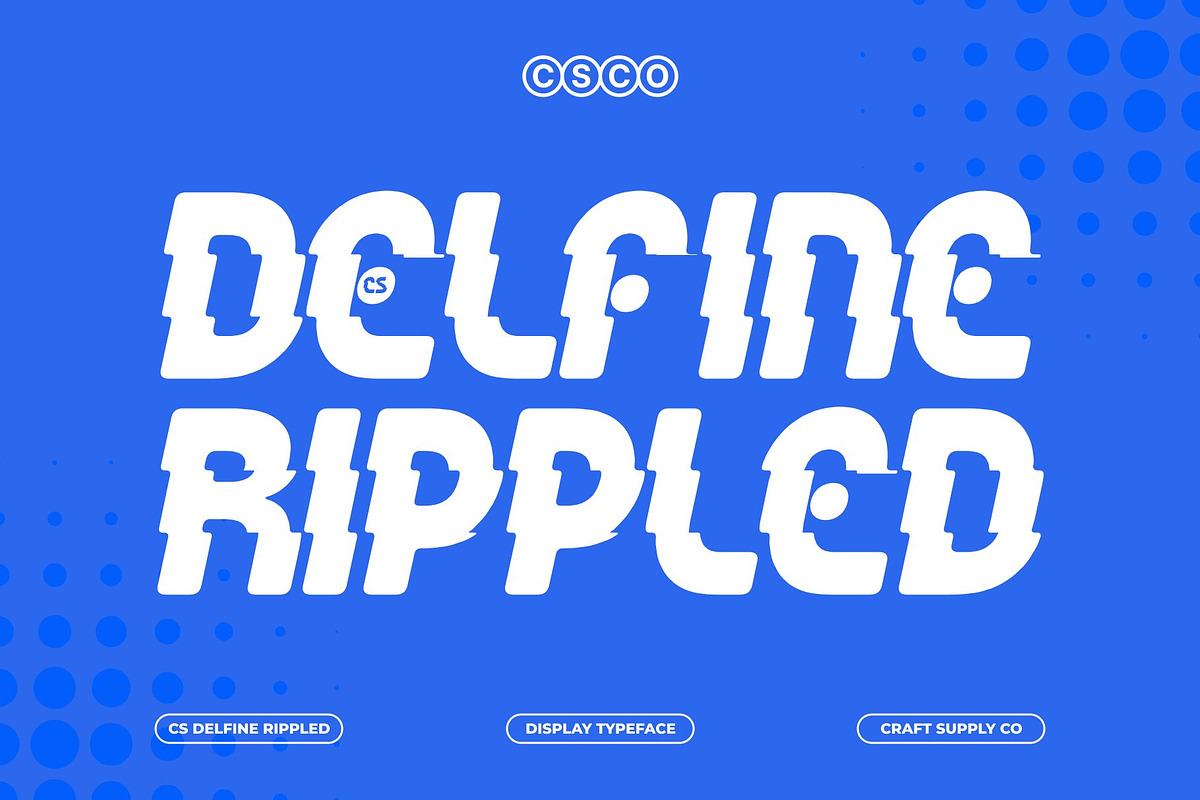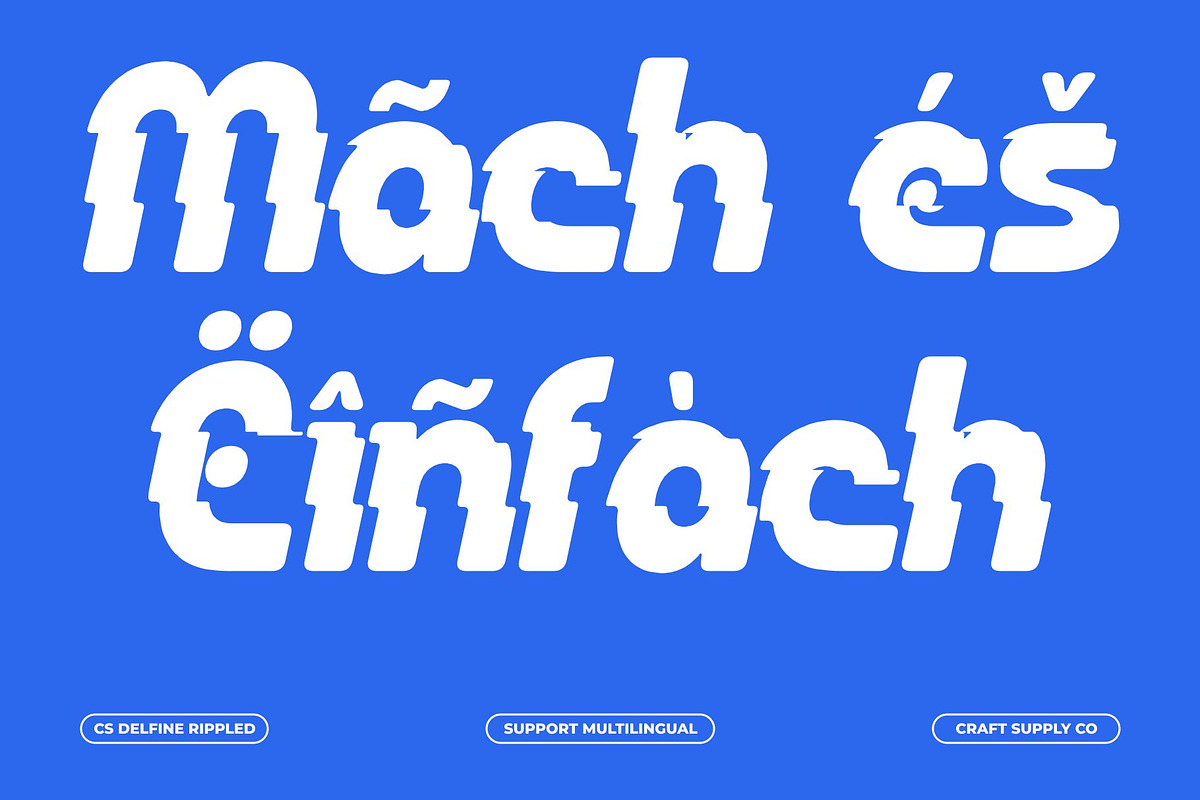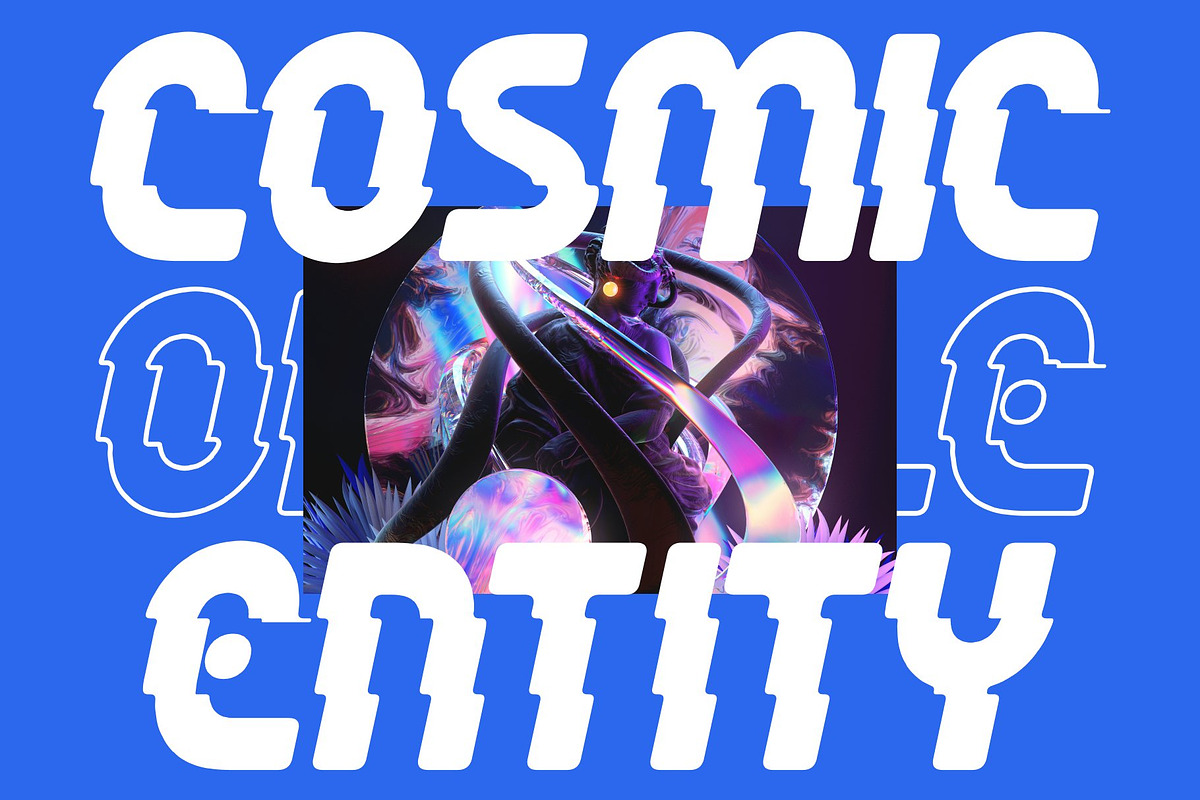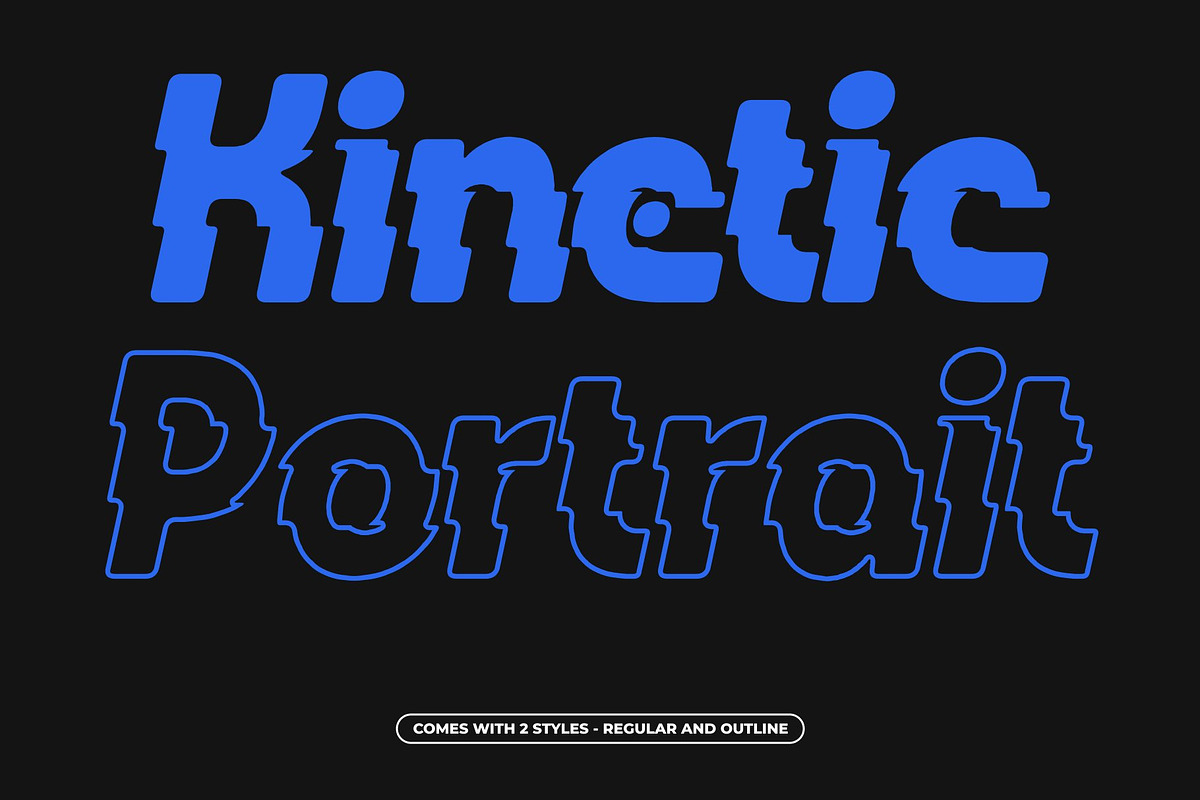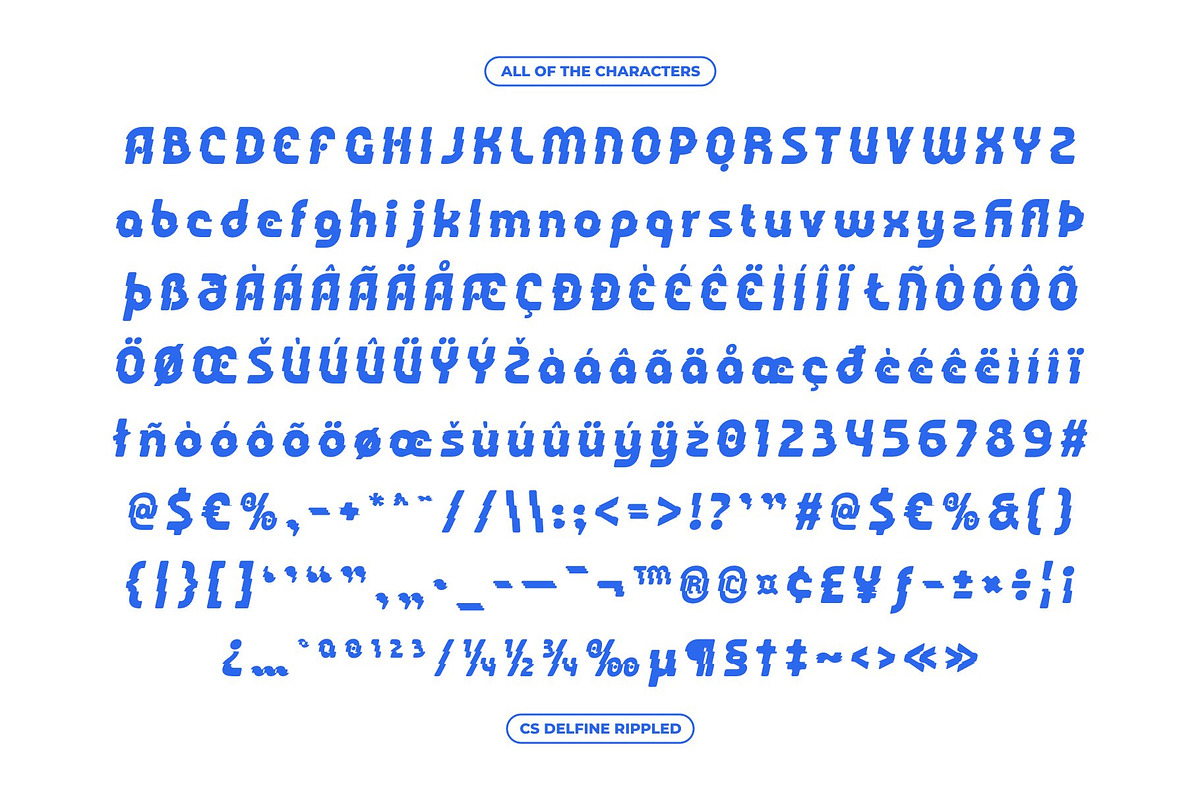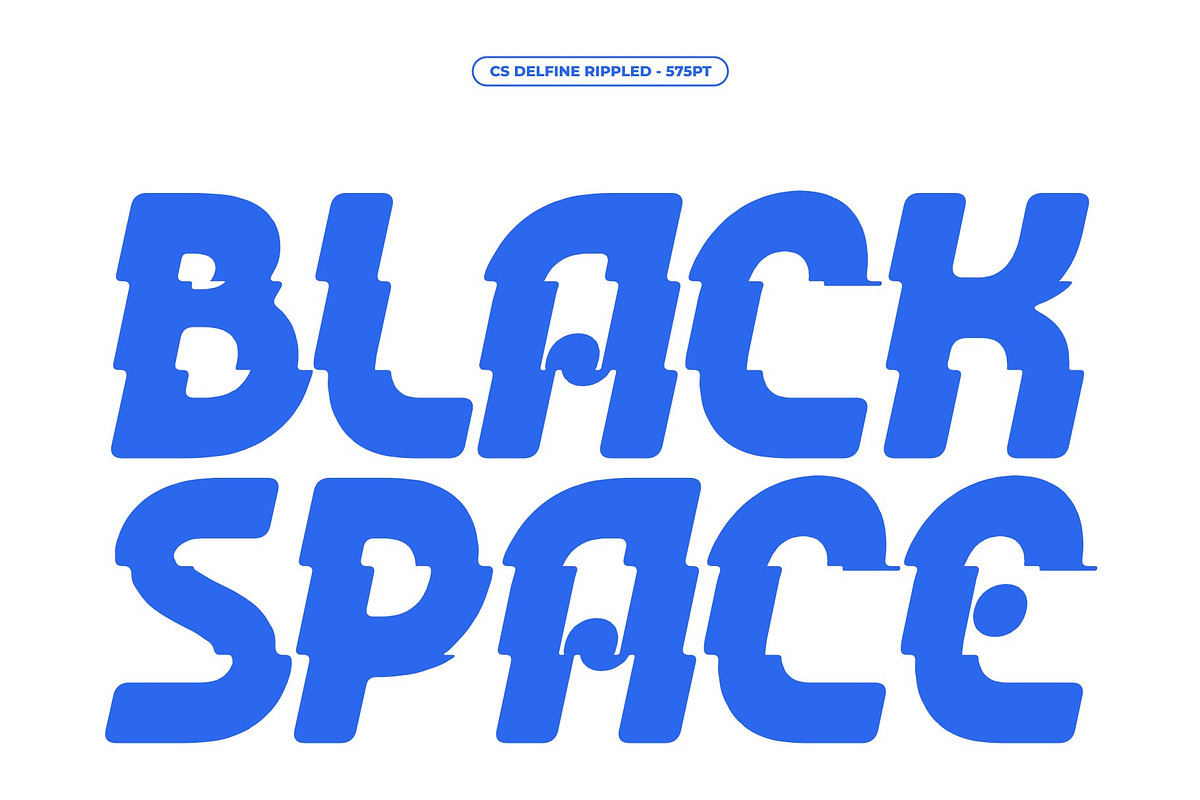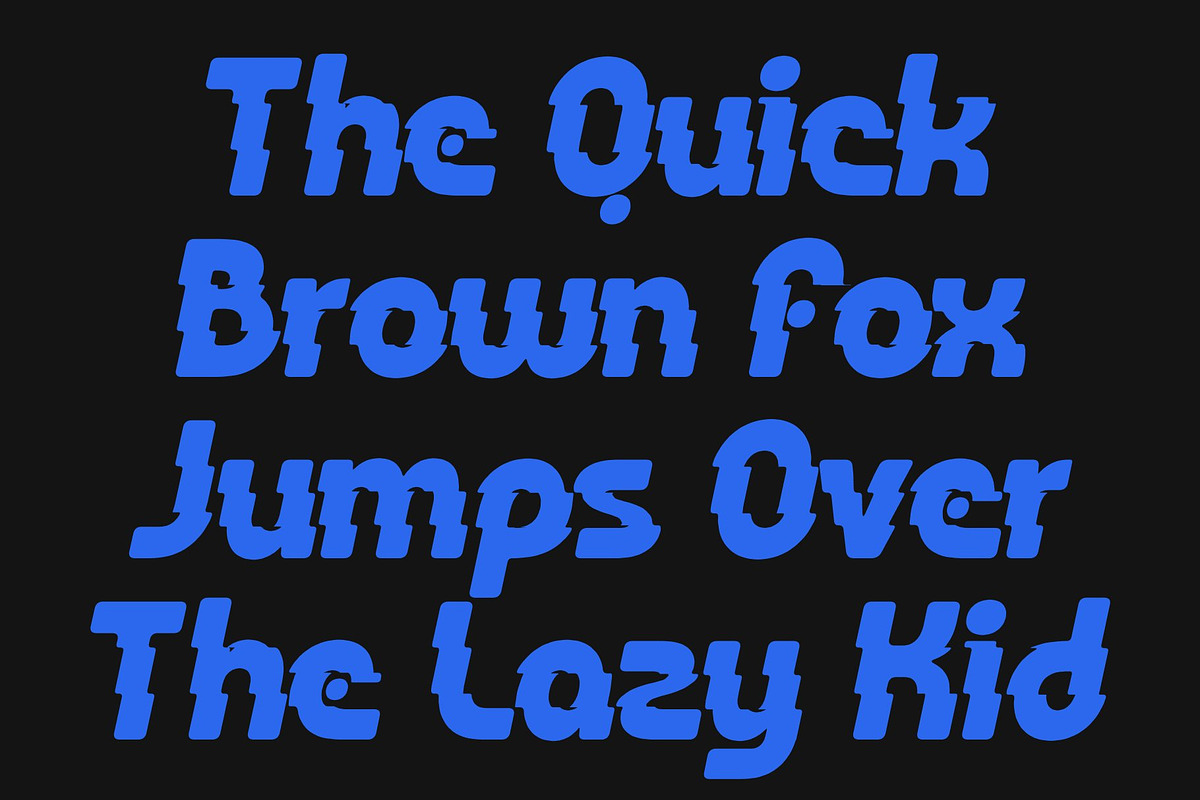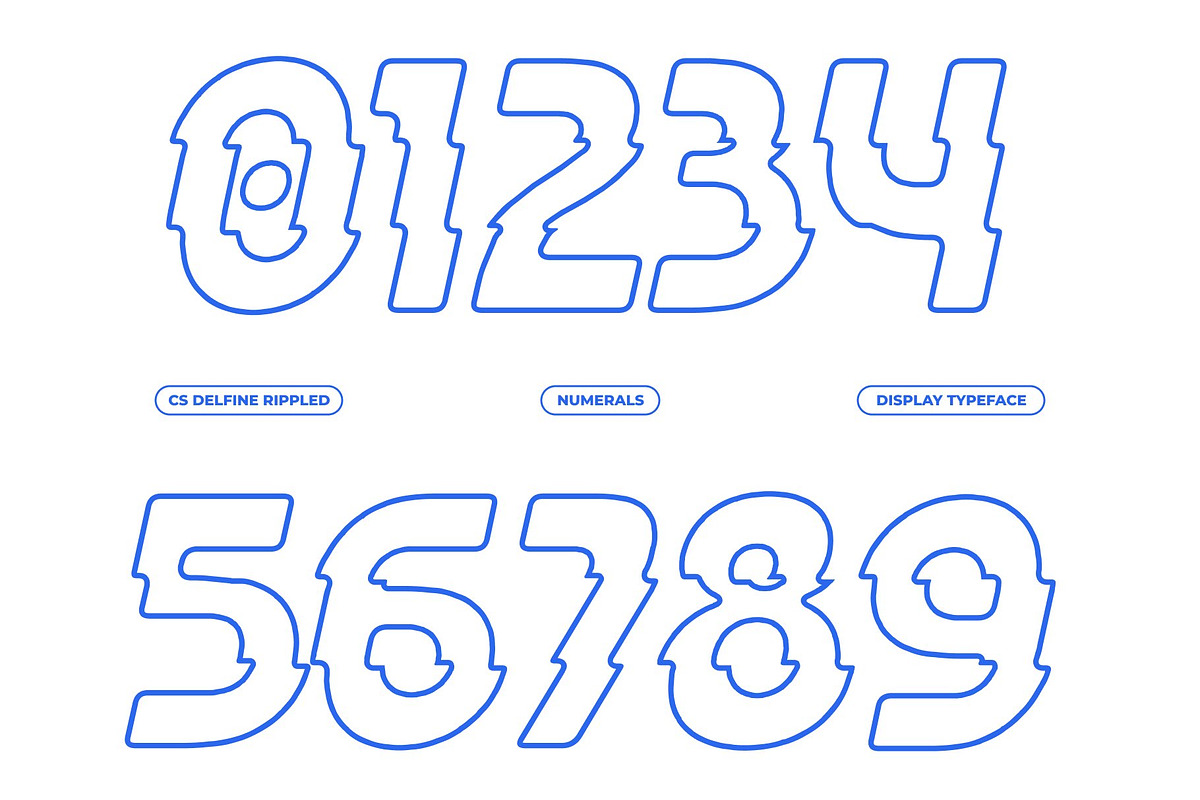
CS Delfine Rippled
CS Delfine Rippled – Bold Font: Energetic Flow with Liquid Rhythm
Striking Modern Sans-Serif Display Font This is a modern sans-serif display font built to deliver maximum visual impact through bold, confident letterforms. Its strong geometric foundation creates an immediate sense of power and stability, making every word impossible to ignore. The clean modern construction is enhanced with expressive shaping, allowing the font to maintain clarity while still feeling dynamic and visually aggressive.
Funky and Lively Character This font carries a vibrant and energetic personality that injects life into every composition. The playful rhythm within its forms creates a sense of movement, giving the typography a lively and expressive identity. This energetic flow makes the font feel spontaneous and fun, perfect for creative projects that aim to capture excitement and youthful energy. It performs especially well in visual storytelling where emotion, rhythm, and bold expression are essential elements.
Versatile for Creative and Bold Projects Designed for flexibility, this font adapts effortlessly across a wide range of creative applications. It works powerfully in event posters, branding identities, social media visuals, and promotional campaigns that require strong visual hooks. Its bold structure ensures high legibility at large sizes, while its expressive style adds personality to every layout. Whether used for commercial branding or artistic experimentation, it consistently delivers a strong and memorable impression.
CS Delfine Rippled Regular
CS Delfine Rippled Outline